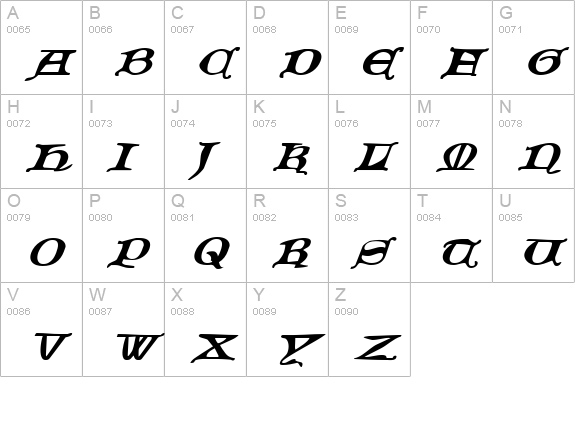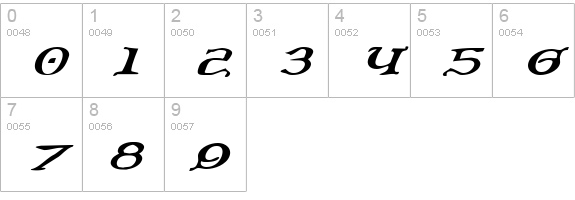
Queen & Country Expanded Italic is a distinctive, extended-width, italic variant in the Queen typeface family \xE2\x80\x94 well suited to design and typography projects.
Queen & Country Expanded Italic is a bold and elegant font that exudes sophistication and charm. Its sleek and elongated letterforms make a striking statement, perfect for adding a touch of luxury to any design project. The italic styling adds a sense of dynamism and movement, making this font ideal for creating eye-catching headlines and titles. Best of all, Queen & Country Expanded Italic is available for free download at FontsMarket.com. This means you can easily access this beautiful font and incorporate it into your designs without any cost. Whether you're working on a branding project, a poster design, or any other creative endeavor, Queen & Country Expanded Italic is sure to elevate your work with its timeless appeal and modern flair. Download it today and let your creativity shine!